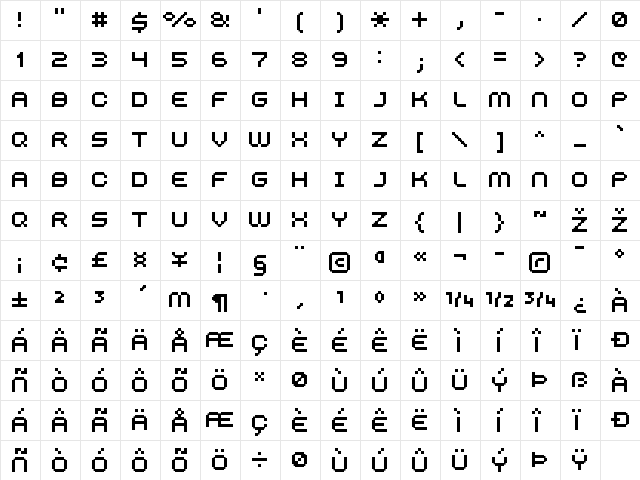
FFF Fuego Extended Regular
Design Context for FFF Fuego Extended Typeface
FFF Fuego Extended is a composed and adaptable typeface that performs quietly and consistently across a wide range of design contexts.